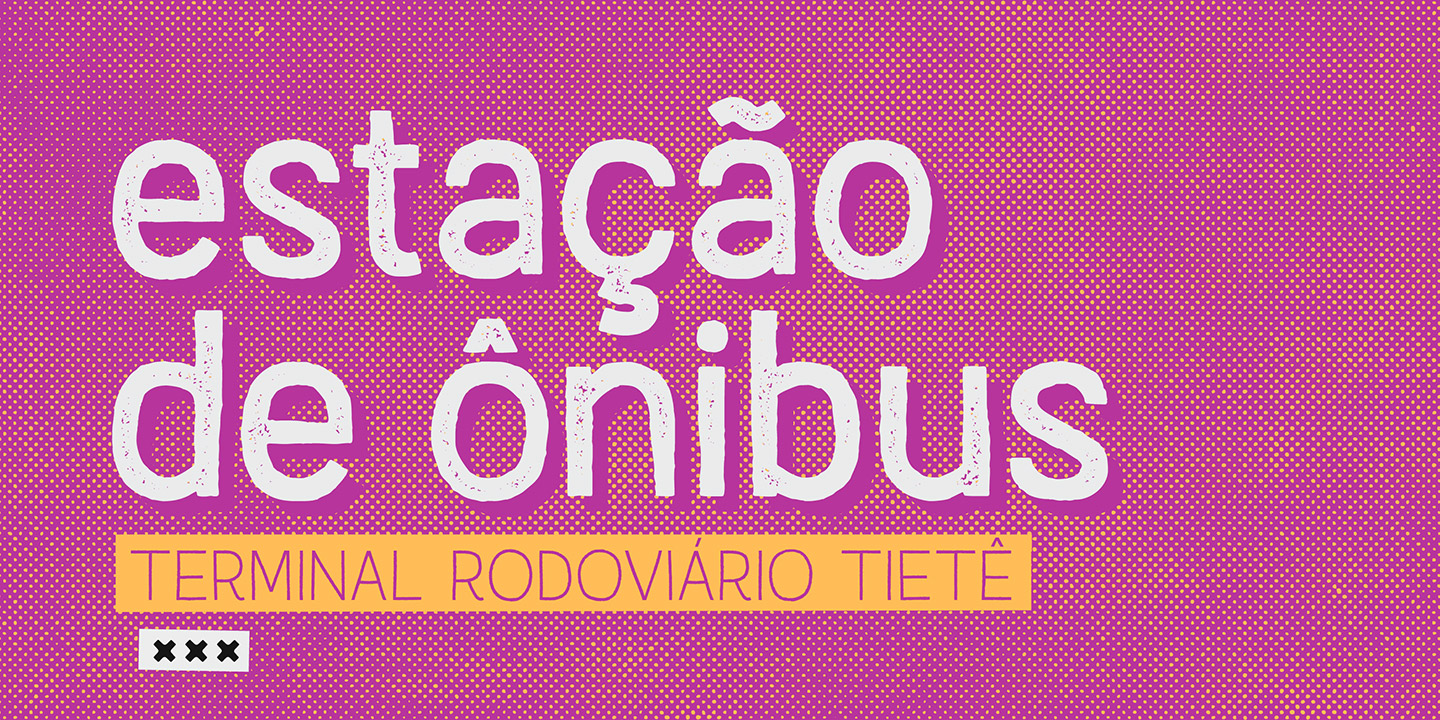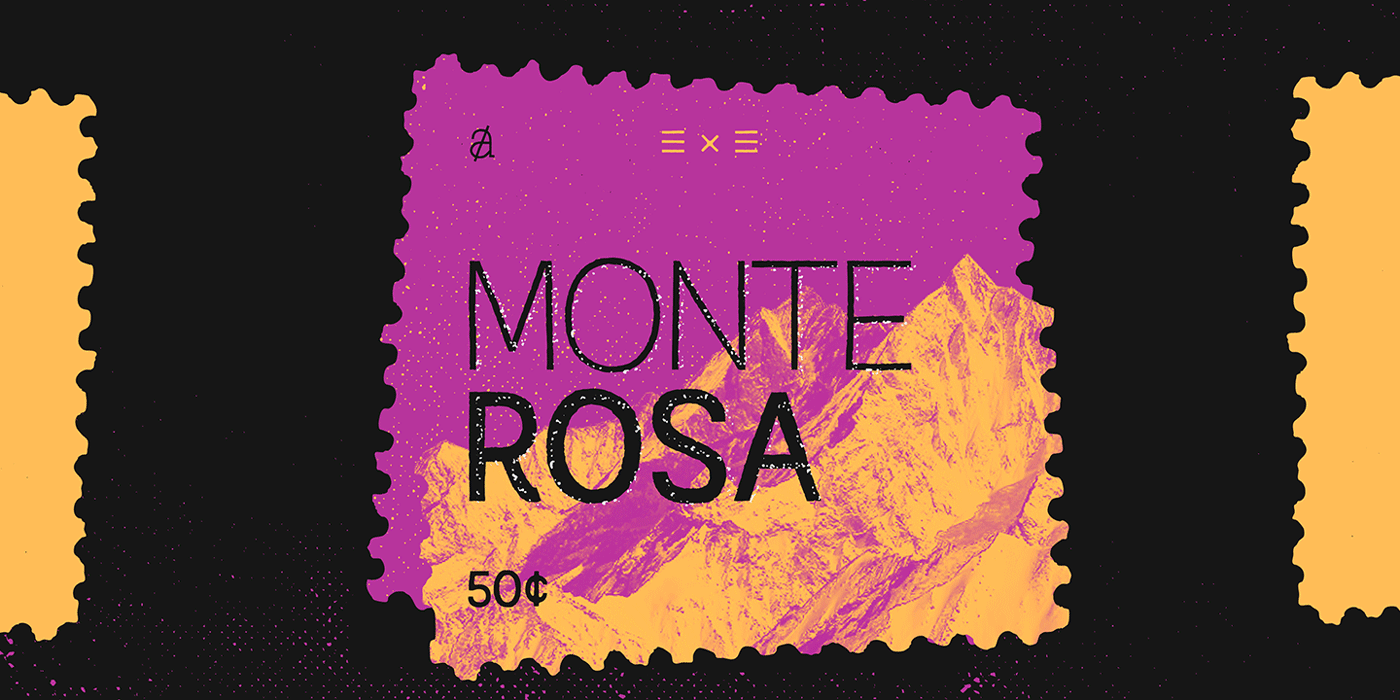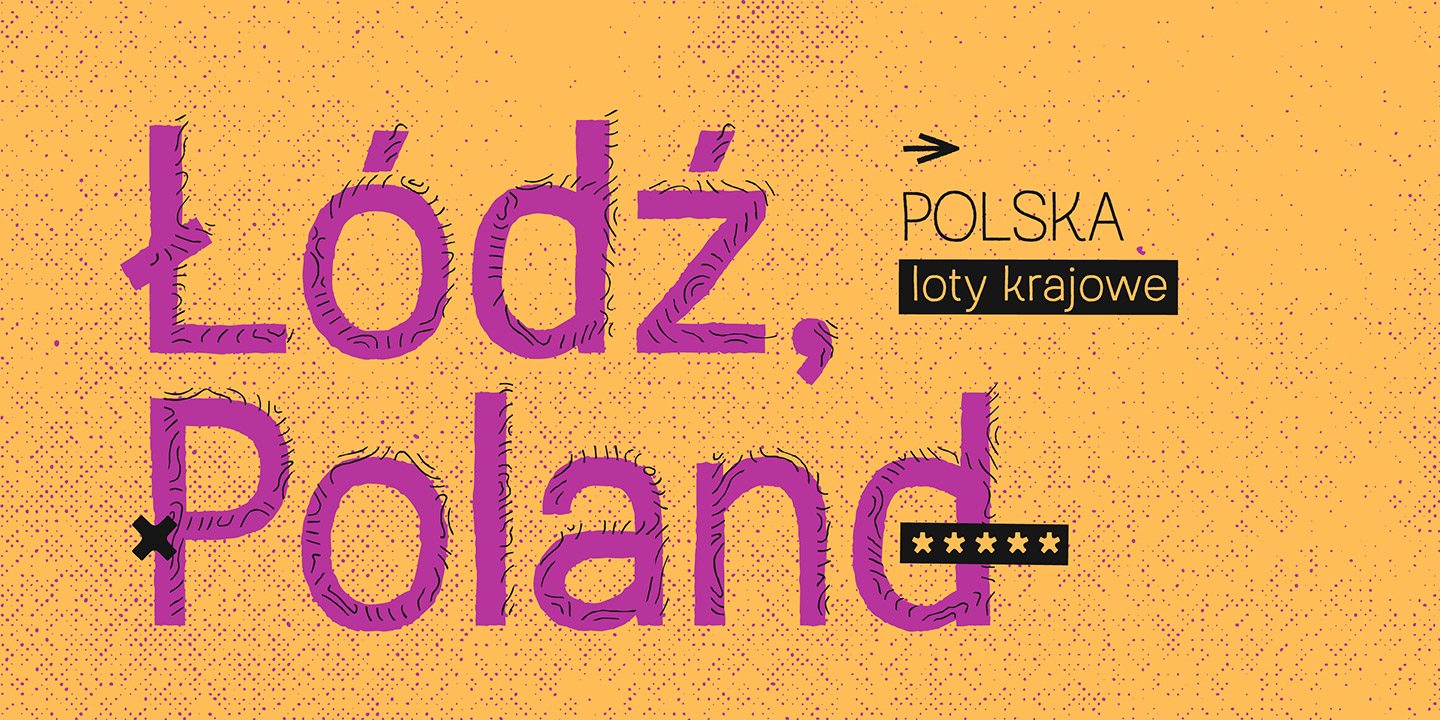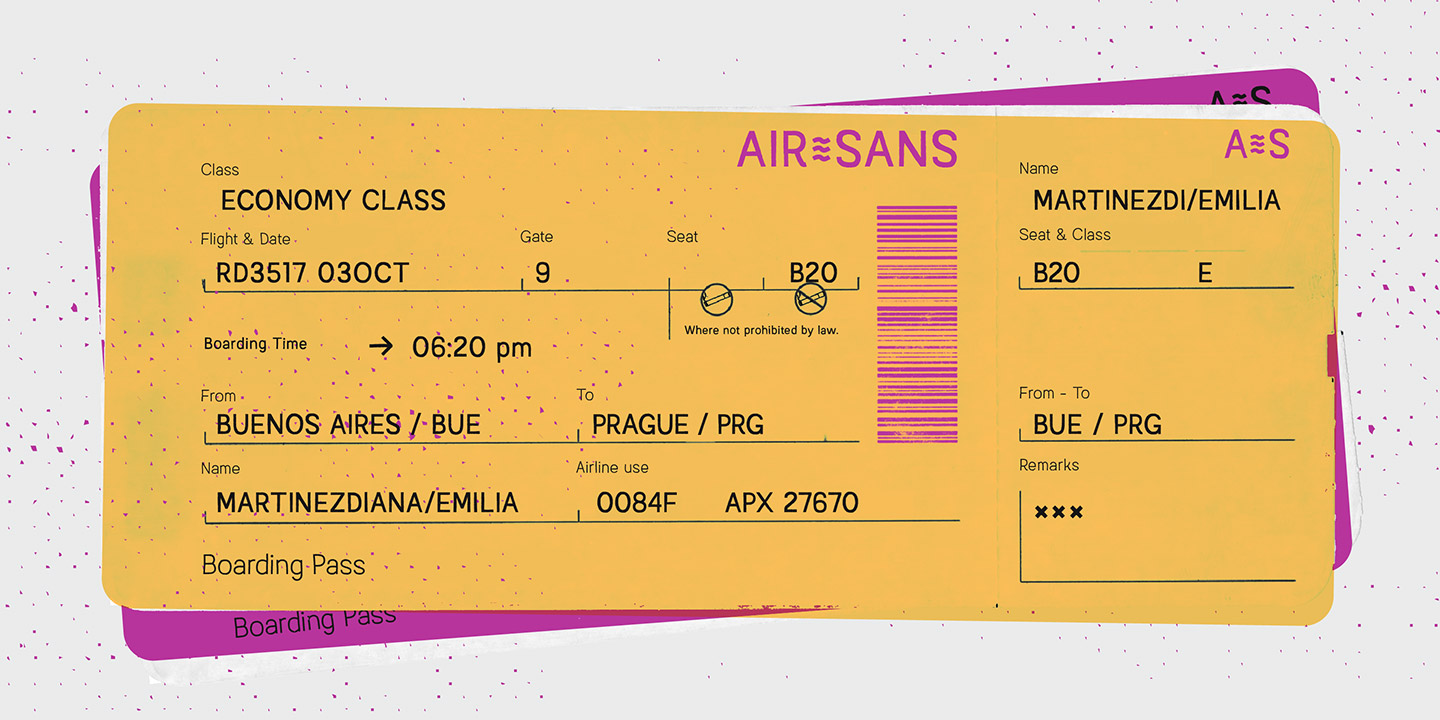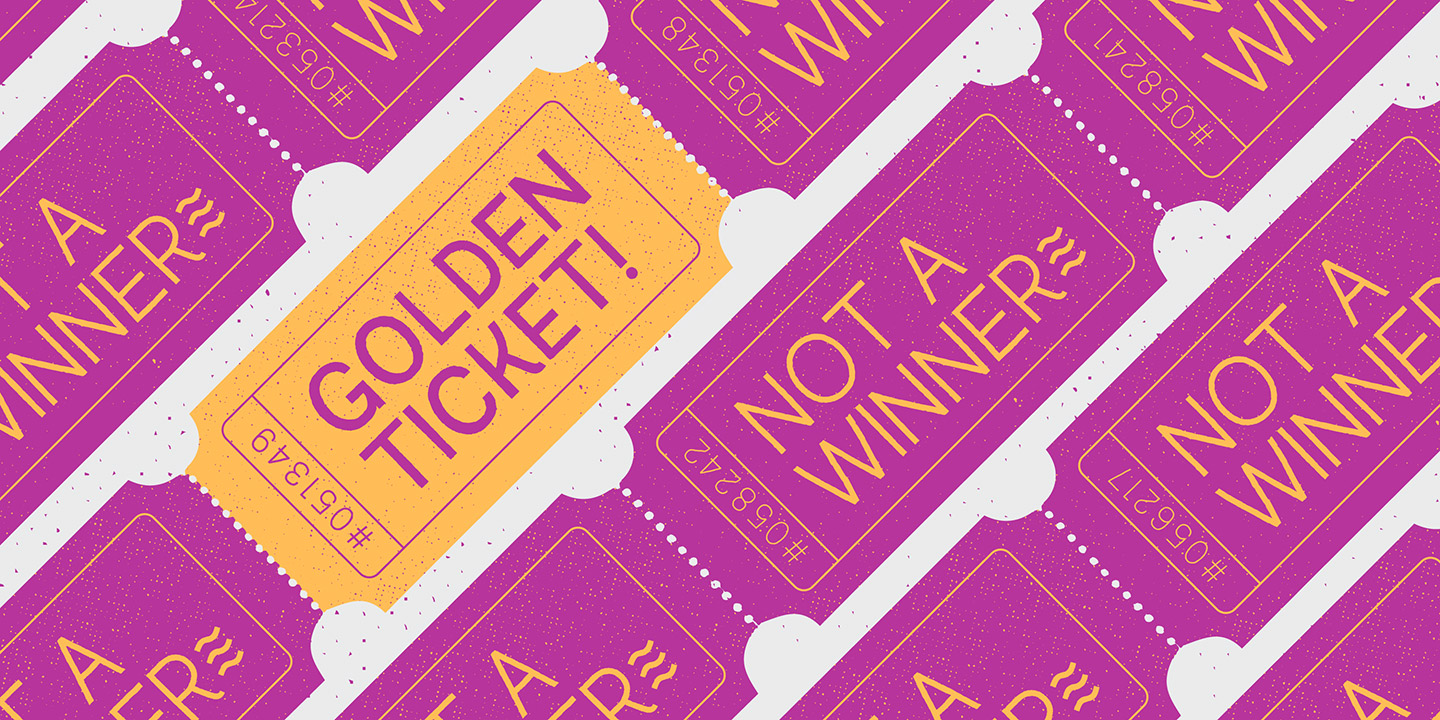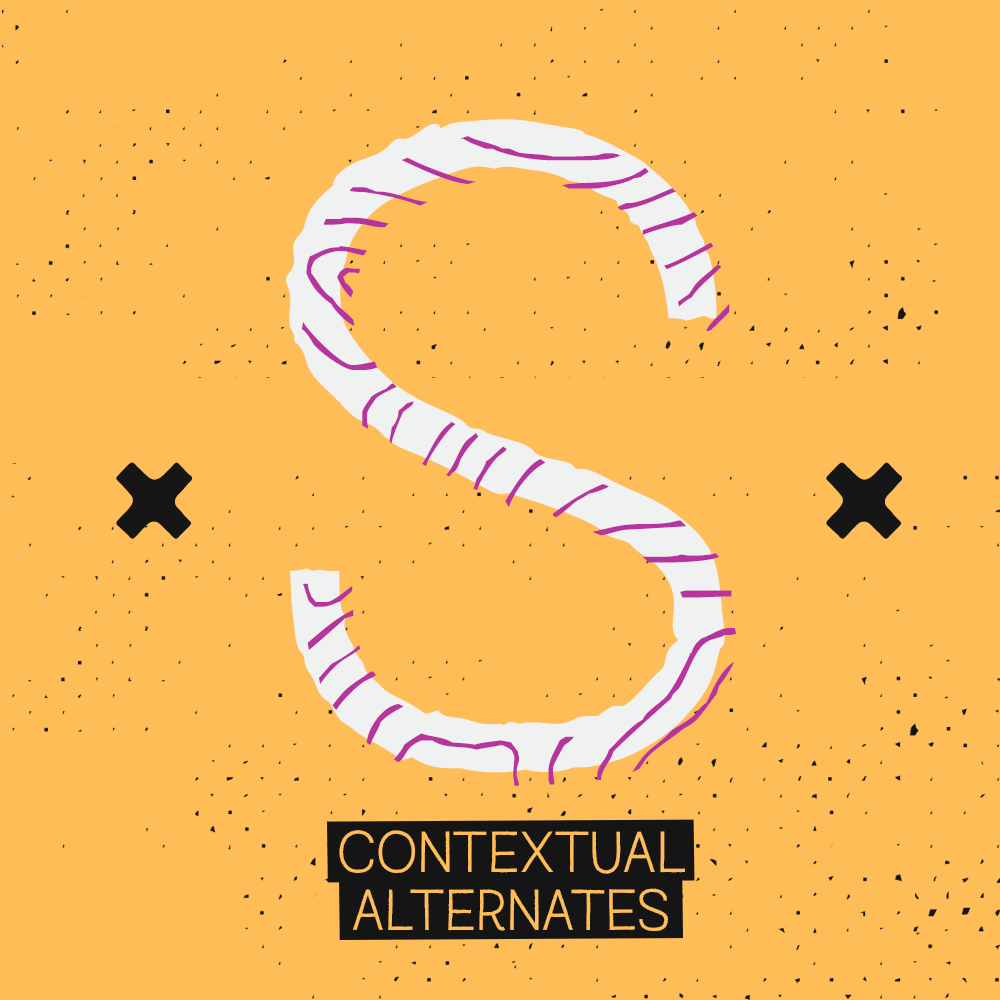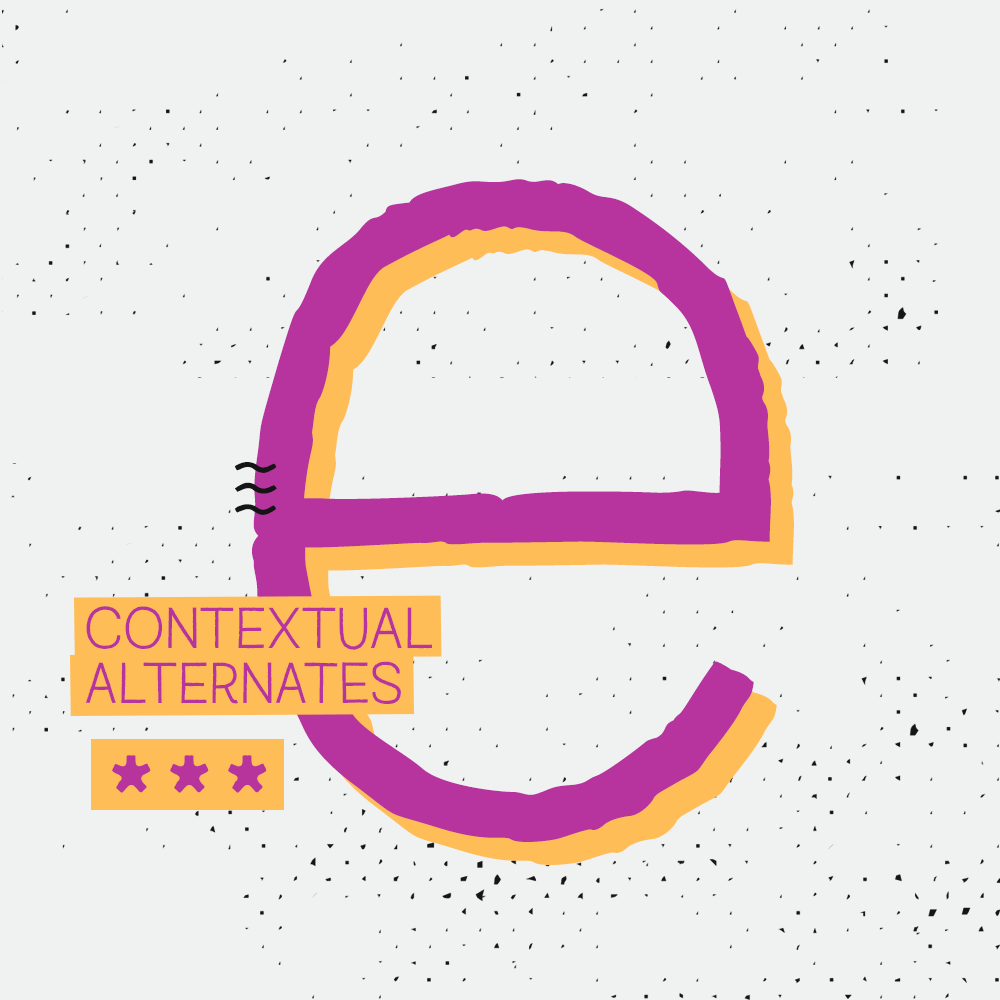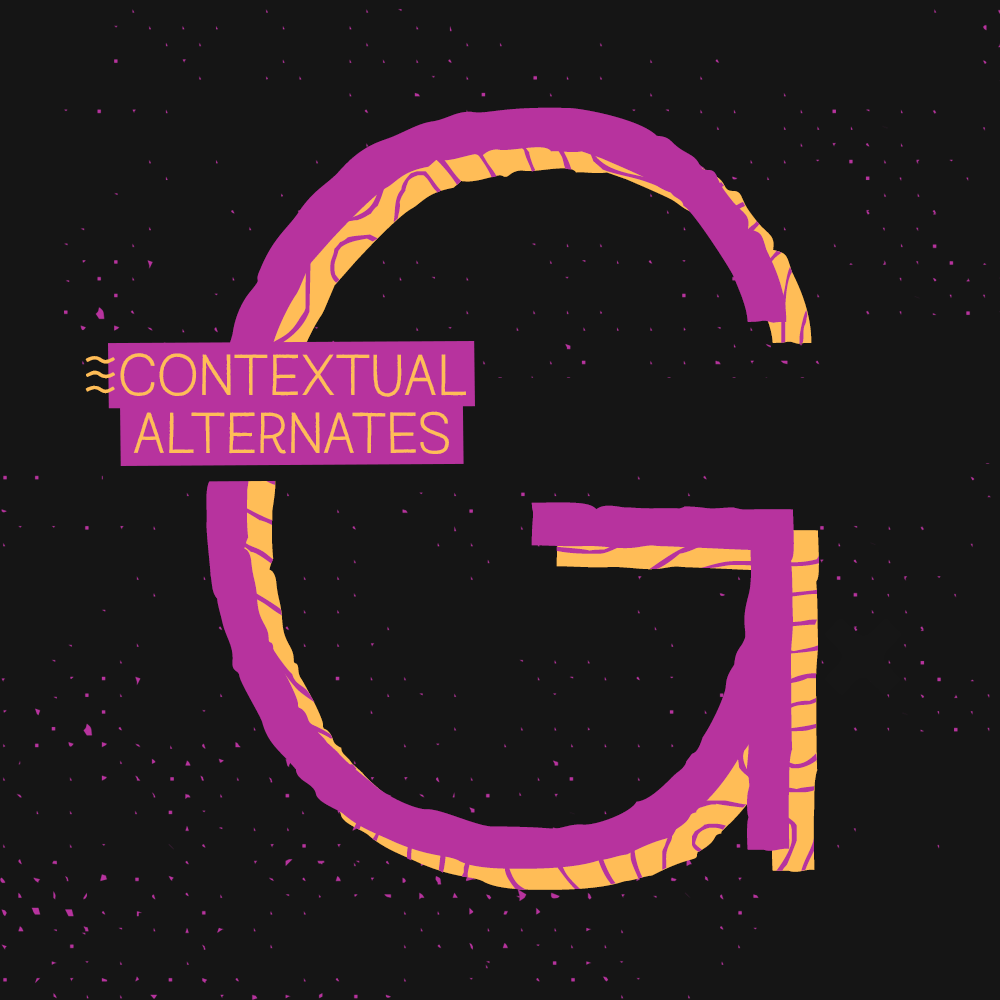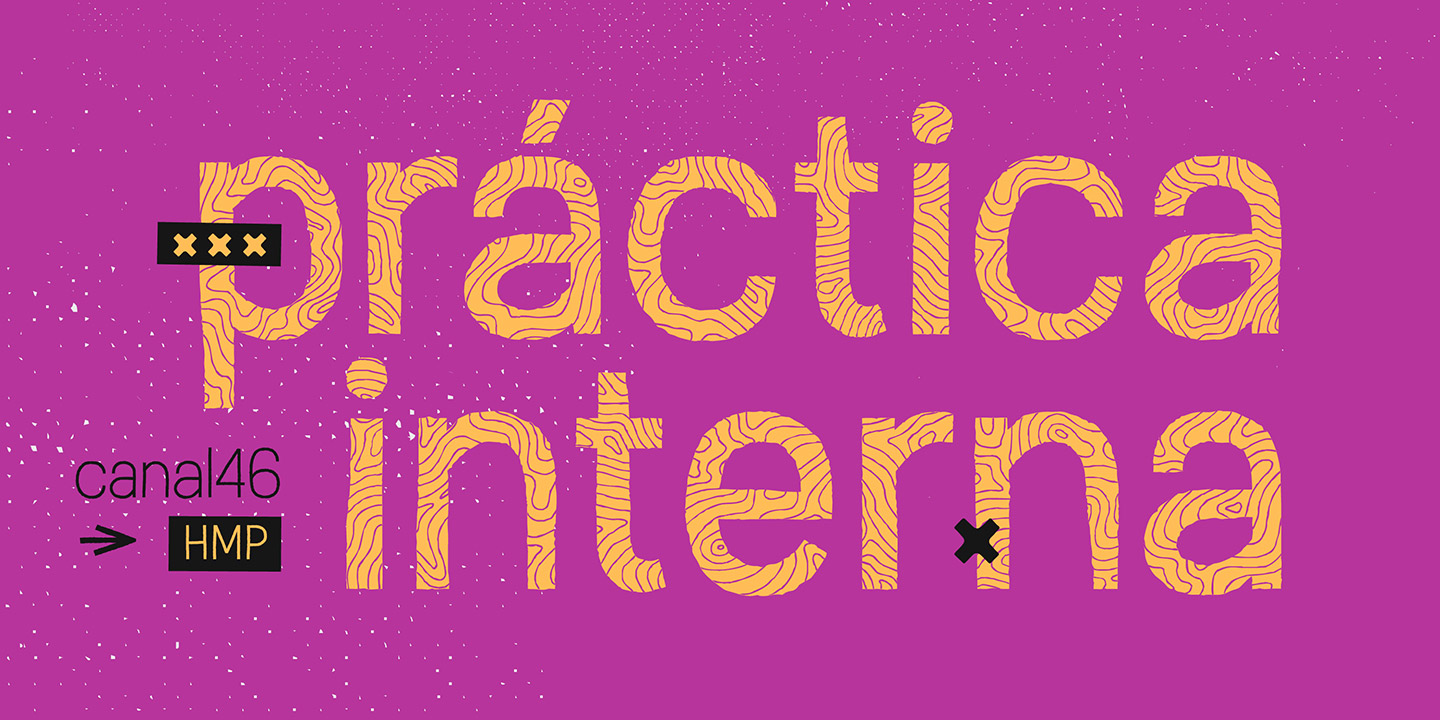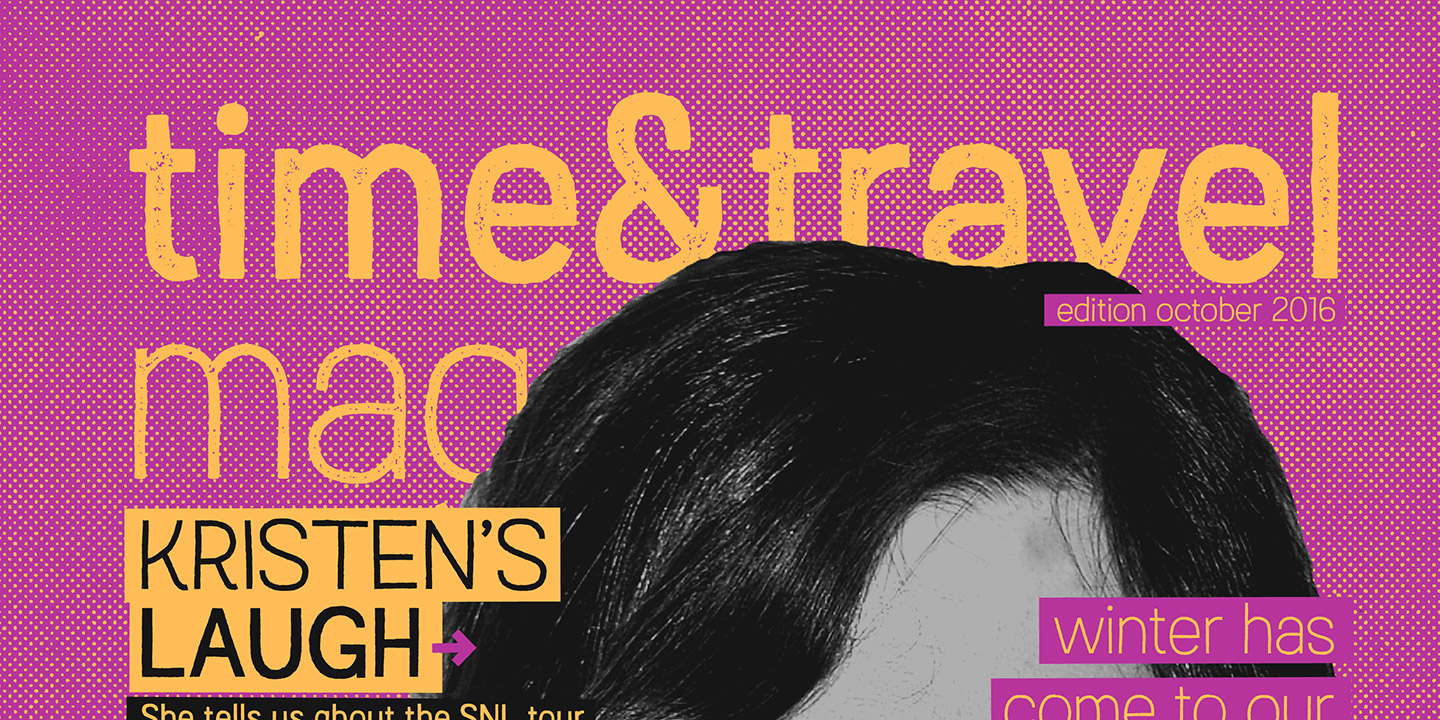
Austral Sans is a hand-drawn layered font designed by Antipixel. Based in the/u00a0Slab/u00a0version, it is part of the Austral type family. This sans makes your work unique & noteworthy, because the possibilities of combinations of textures & styles create distictive results. Austral Sans comes in three weights, Regular, Light & Thin, which all share the same crooked look with irregular strokes and outlines./u00a0For these reasons this font can be used in a vast variety of projects, such as logos & branding, stationery, book covers, magazine design, clothing prints & tags, packaging, animated videos, and many more!
Austral Sans has three sets of alphabets in uppercase and lowercase to avoid repeating the same character pattern, and giving the font a more natural handwritten feel. This is included in the Open-Type/u00a0Contextual Alternates, which applies an automatic substitution of glyphs as long as the/u00a0Open-Type features/u00a0are activated. Also, Austral Sans offers other Open-Type features such as/u00a0Stylistic Alternates, Ligatures, Discretionary Ligatures, Fractions, Superscript, Subscript, Denominator, Numerator, Scientific Inferiors & Kerning.
This font has a very large glyph coverage and can be used in a wide range of languages, including/u00a0English, Spanish, Portuguese, Italian, French, German, Polish, Czech, Vietnamese, Finnish, Icelandic, among many others.